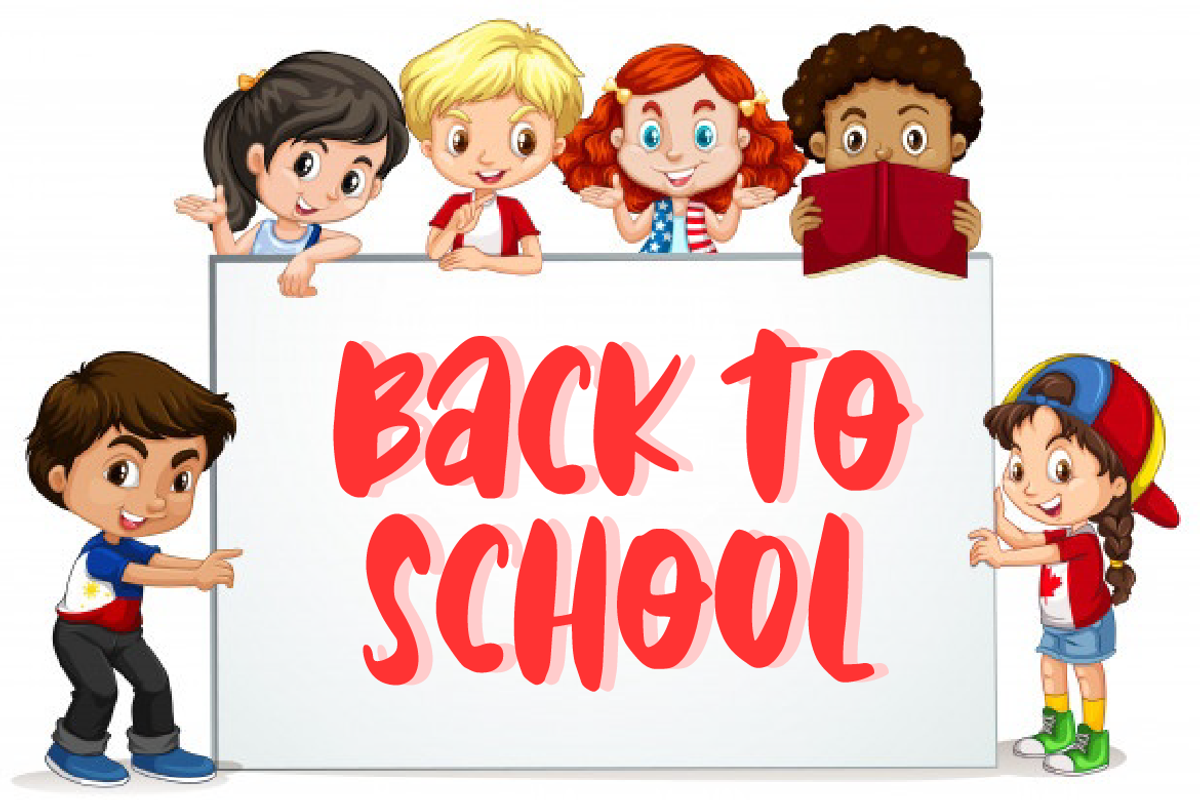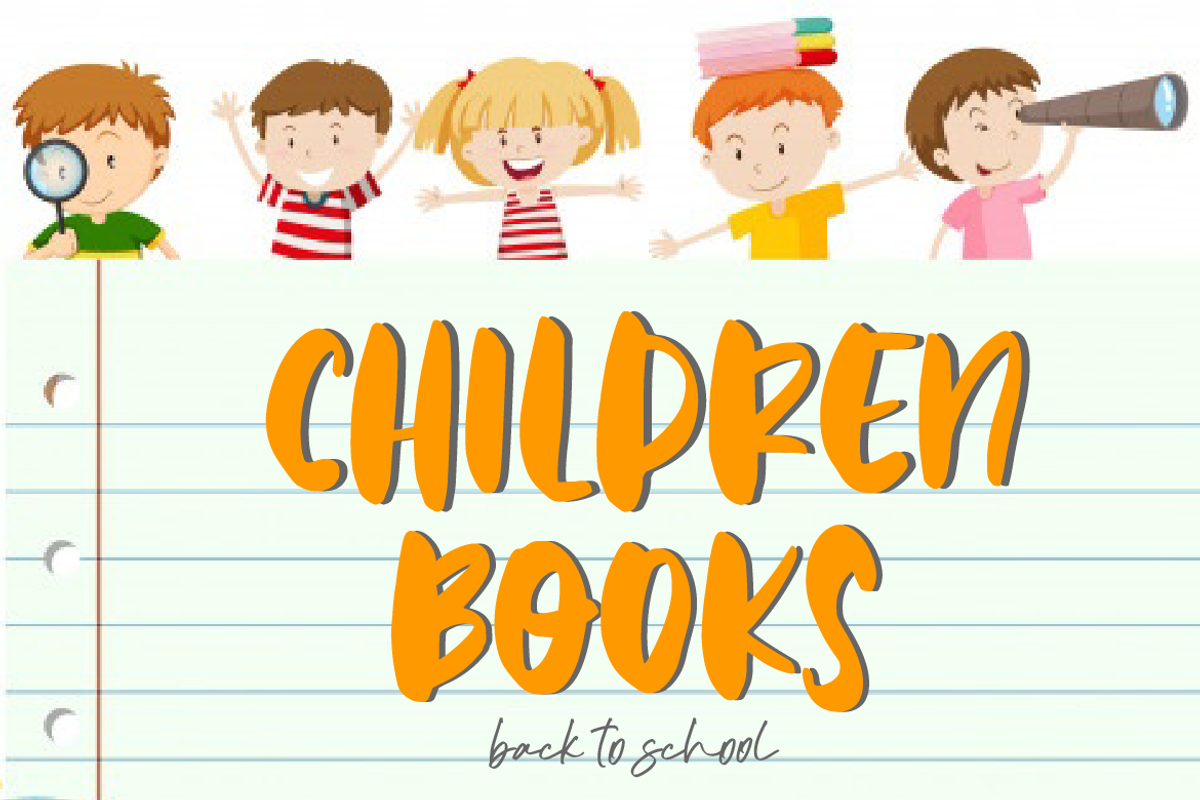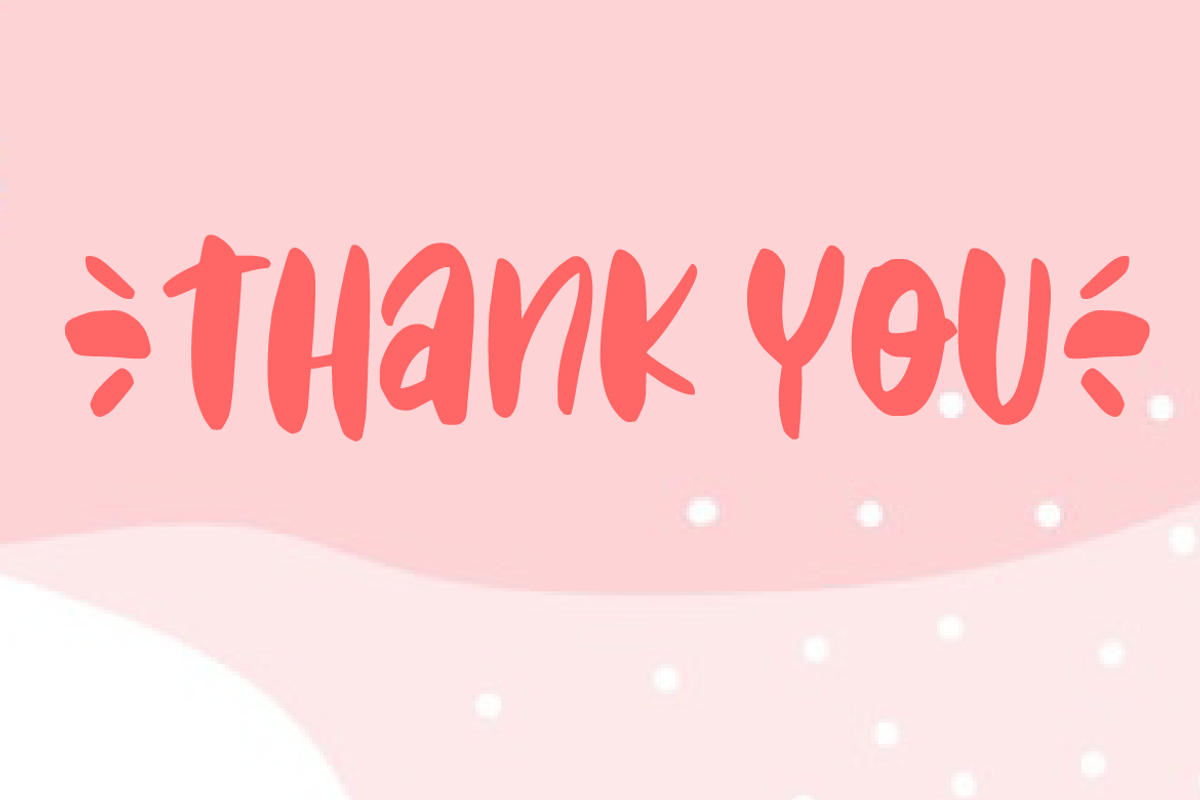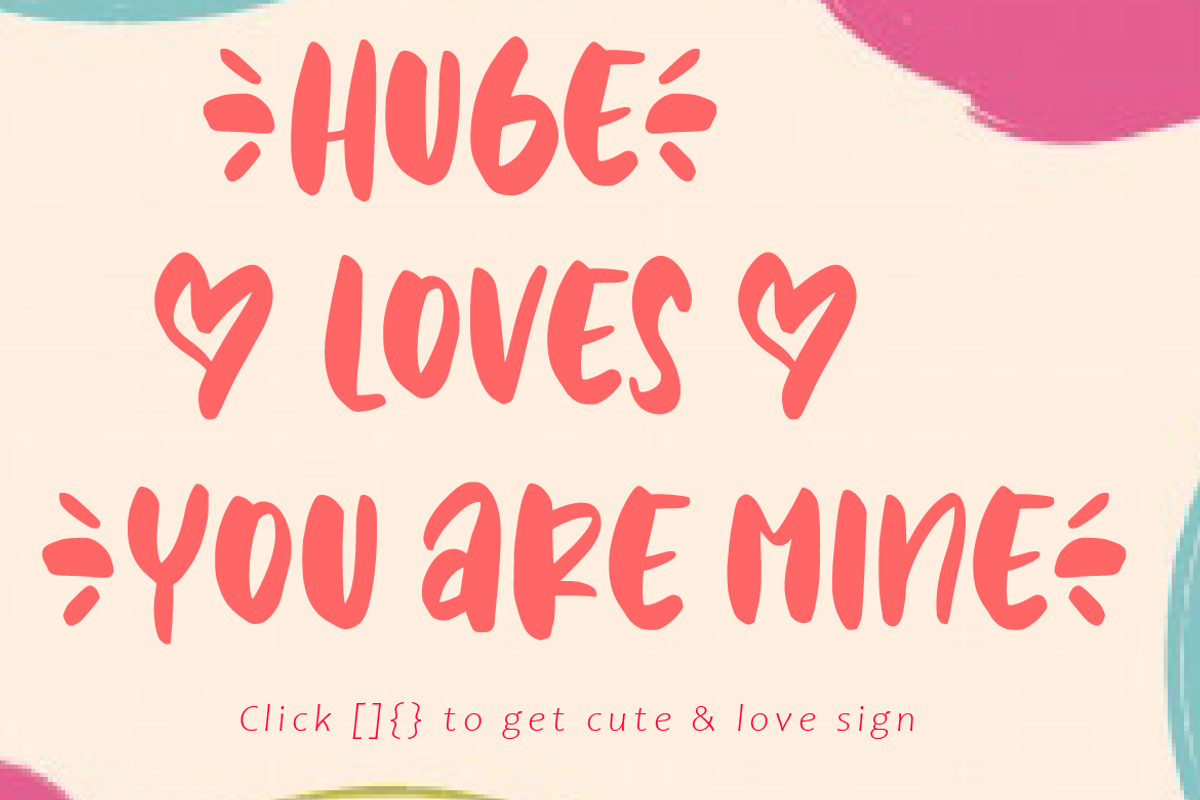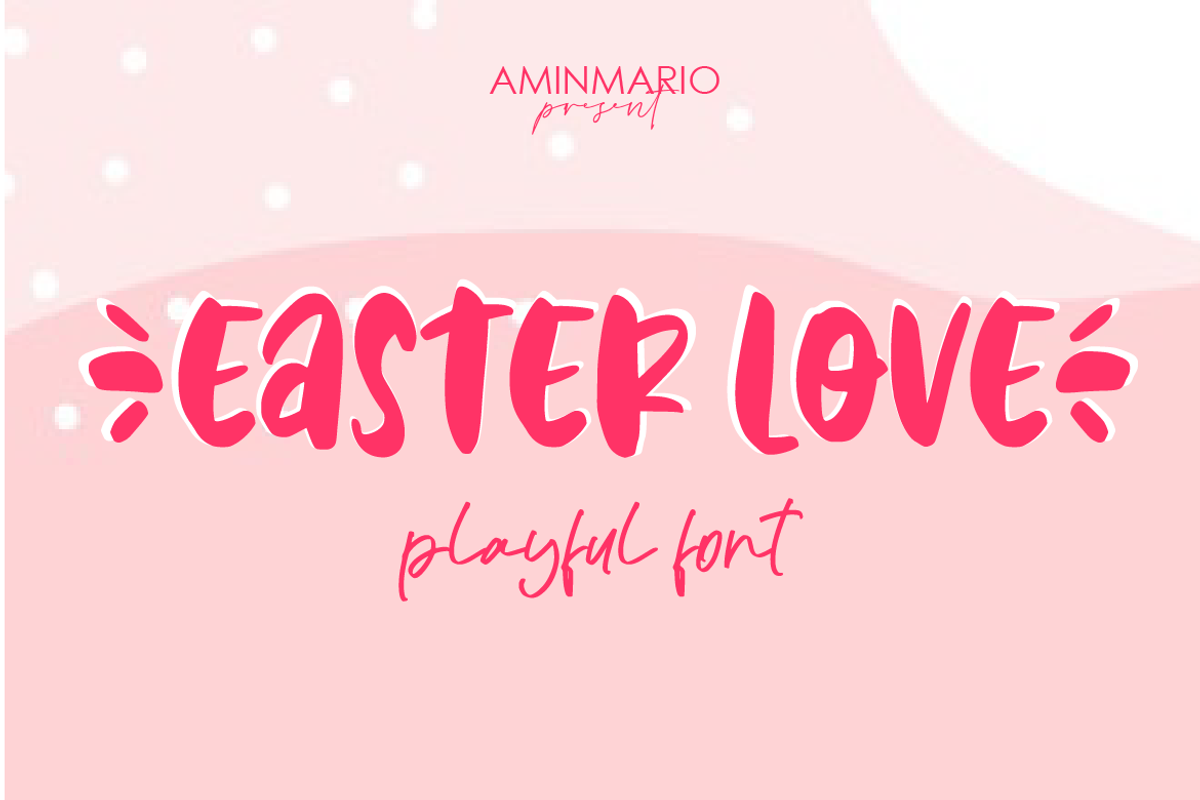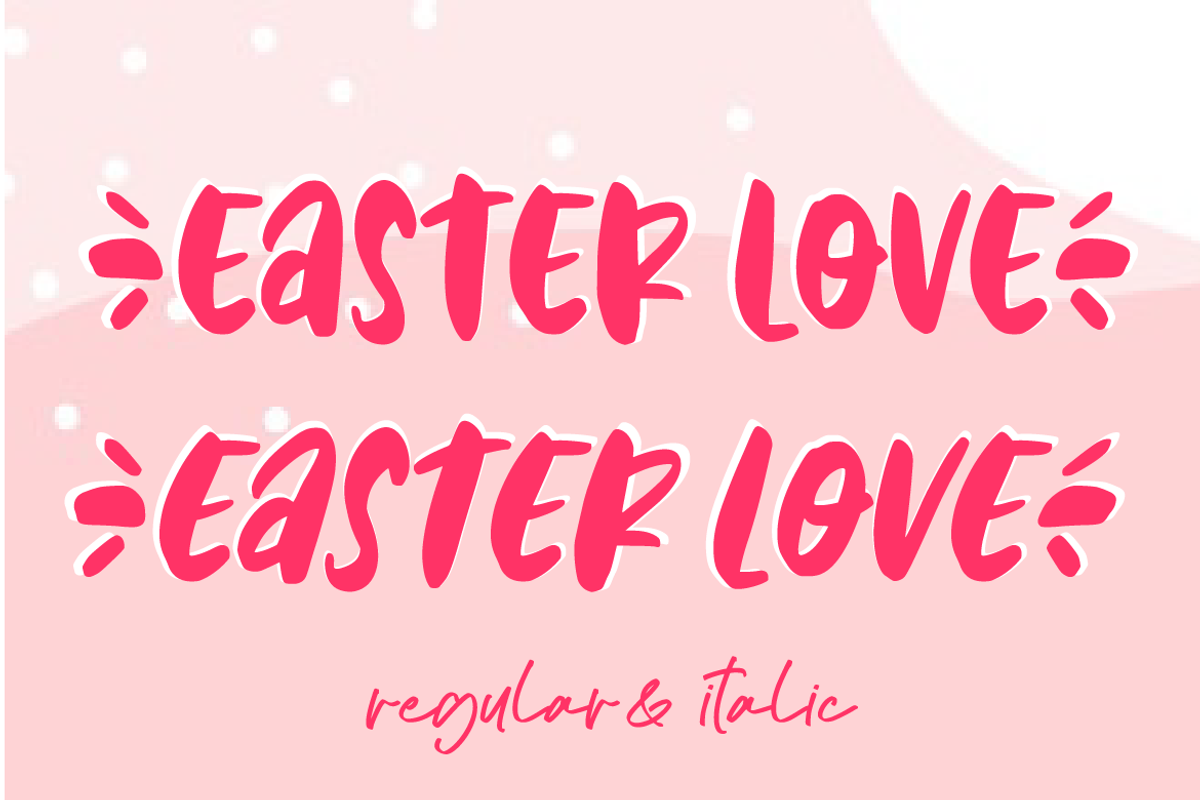
Easter Love
Easter Love is a playful and friendly display font. It is ideal for any crafting project, social media post, quotes, headers, decorations and much more.